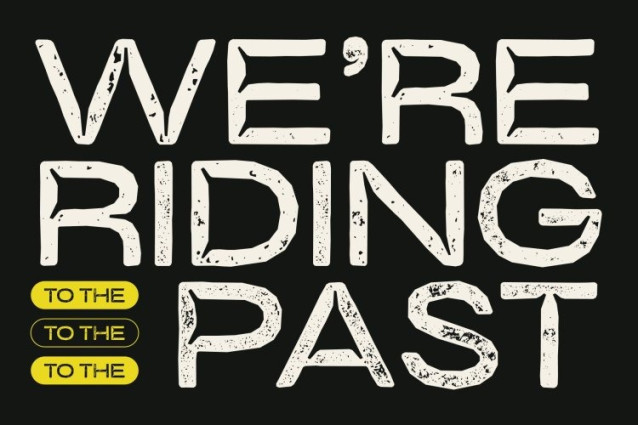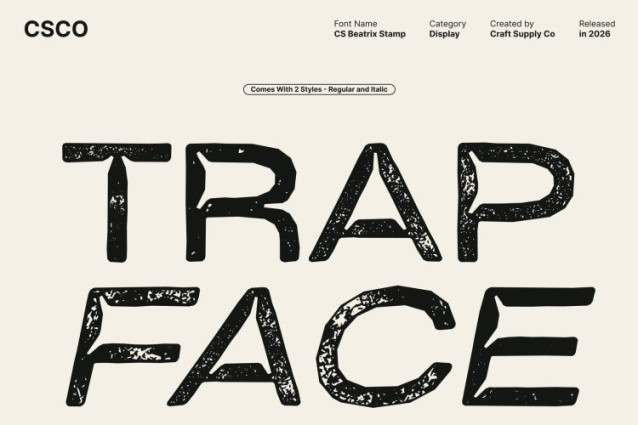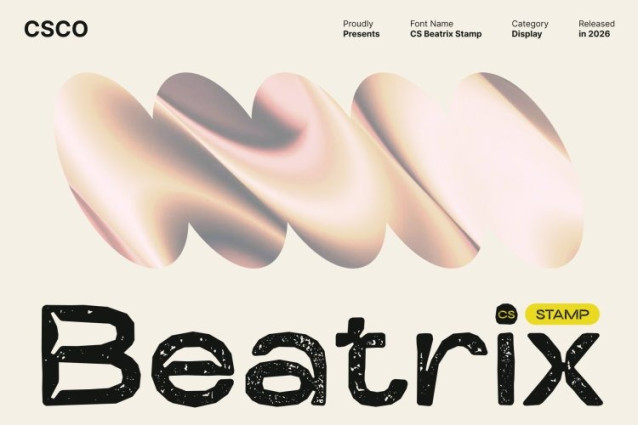
CS Beatrix Stamp Font
CS Beatrix Stamp Font This is a modern sans-serif inktrap font defined by clean, sharp lines and precise technical detailing. Its distinctive inktrap cuts small notches placed at critical corners are designed to reduce ink buildup and soften sharp angles, resulting in improved clarity and visual balance. The added stamp texture introduces subtle imperfections, blending technical accuracy with a tactile, handcrafted feel.
Enhanced Readability with a Stamped Edge
The inktrap structure ensures excellent legibility across sizes and mediums, while the stamp effect adds depth without sacrificing clarity. This combination allows to perform exceptionally well in both print and digital environments, maintaining readability even in challenging conditions such as small text or textured backgrounds.
Modern, Professional, and Visually Distinct
Ideal for branding systems, editorial layouts, web interfaces, and marketing materials, delivers a professional tone with added personality. Its modern geometry communicates precision and reliability, while the stamped texture softens the overall appearance, creating a balance between clean design and expressive character.
Versatile for Contemporary and Textured Design Needs
This font adapts effortlessly to a wide range of creative applications. Whether used for corporate branding with a distinctive edge, modern posters with tactile appeal, or digital designs that seek clarity with warmth, this font proves that functional typography can also feel expressive, human, and visually engaging.